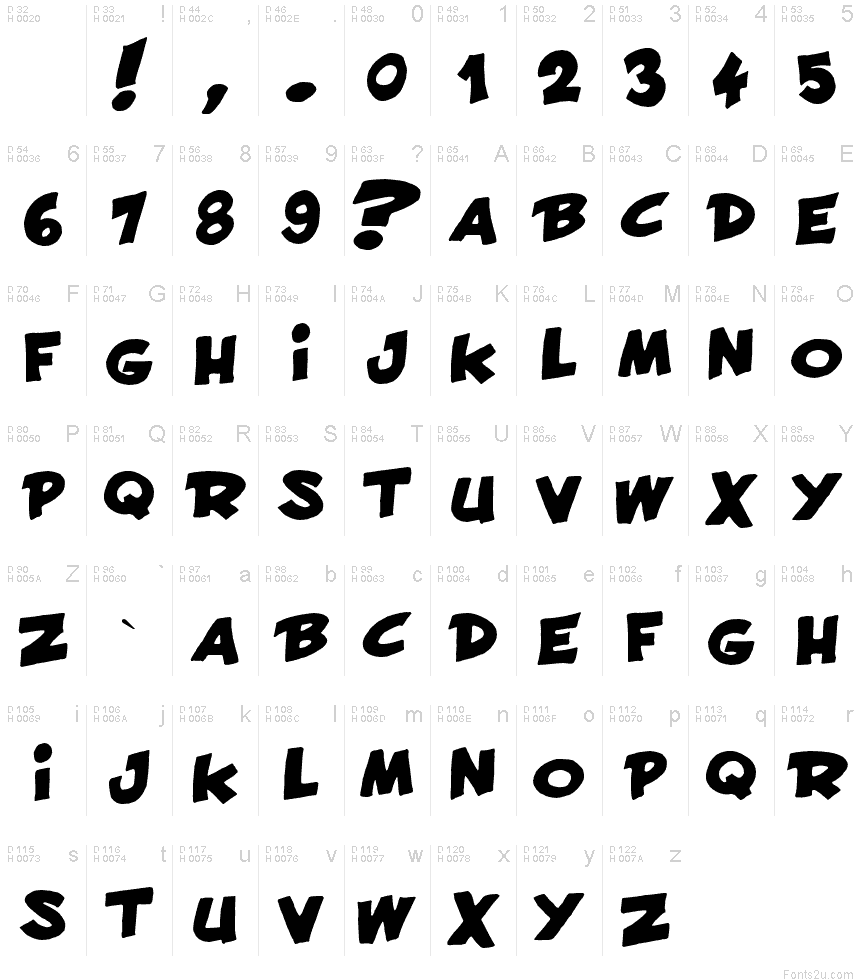
Francobelge is a free cartoon display font with chunky, hand-cut lettering and an unruly silhouette. Its broad strokes shift in width, and the blunt corners, tilted forms, and uneven heights make each letter look quickly carved from paper.
As a rough-cut title, it suits children's entertainment, comedy posters, and music event graphics where polished geometry would feel too formal. It also gives snack packaging an immediate comic-book punch. For casual brands, the irregular shapes can become the product identity itself, suggesting handmade labels, noisy mascots, and playful shop signage.